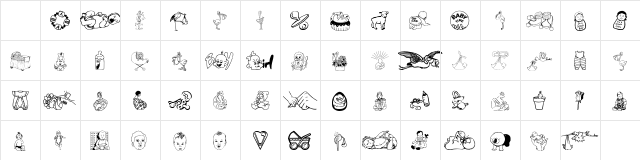
Complete Baby Time Regular glyph index. Displaying only characters natively supported by Baby Time Regular font.
Baby Time is a composed and adaptable typeface that performs quietly and consistently across a wide range of design contexts.